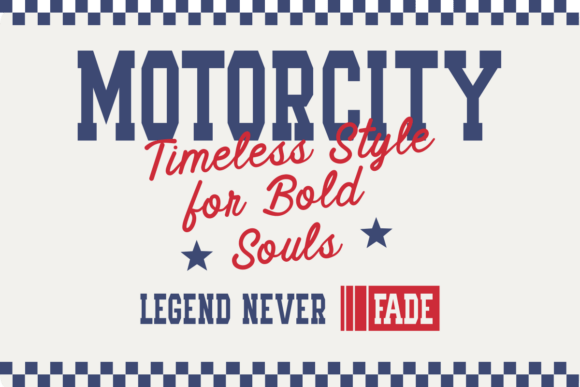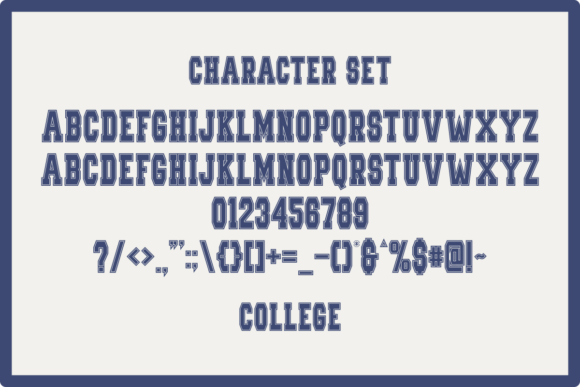
College the Holiday Font
College The Holiday is a bold varsity font inspired by retro sports typography, featuring 4 unique styles: Regular, Outline, Inline, and Handwritten Script. This font is perfect for adding a strong classic or modern touch to your creative projects, whether it’s designing jerseys, posters, vintage logos, campus event materials, merchandise branding, or any other design that needs a bold and timeless sports vibe.